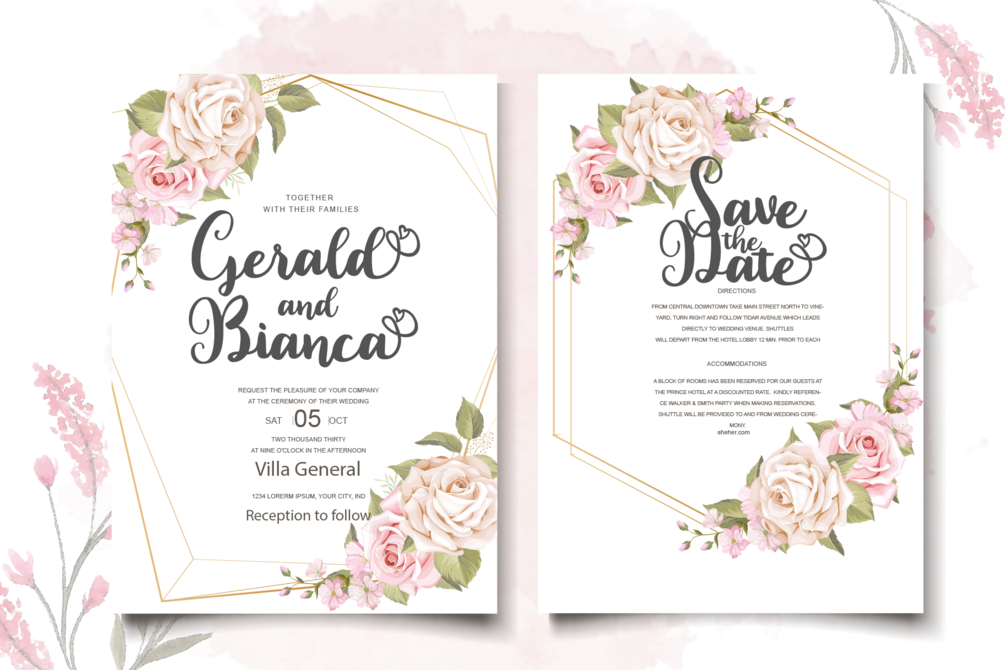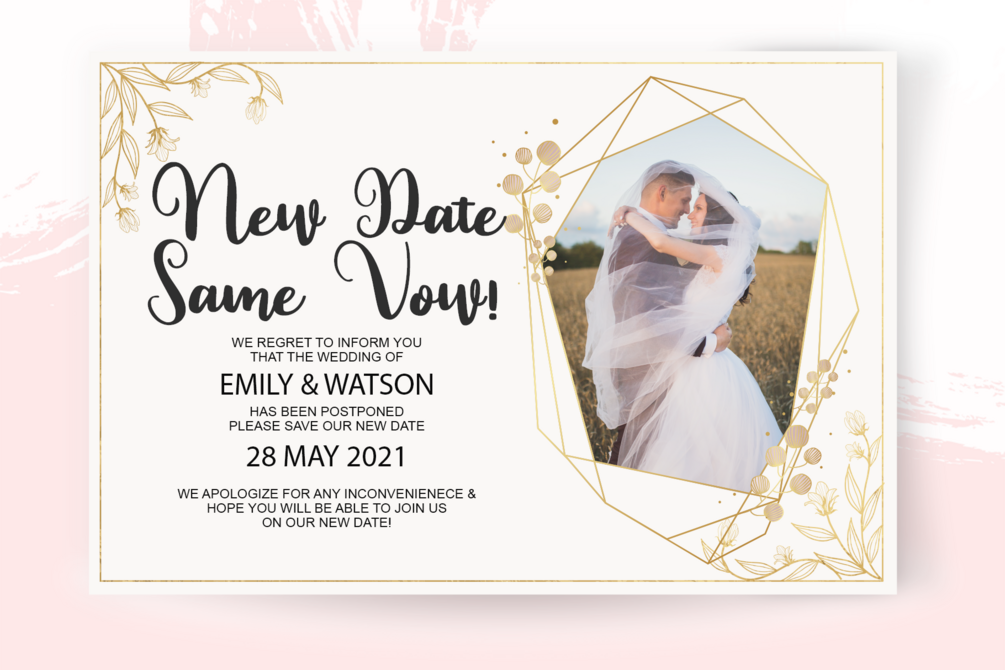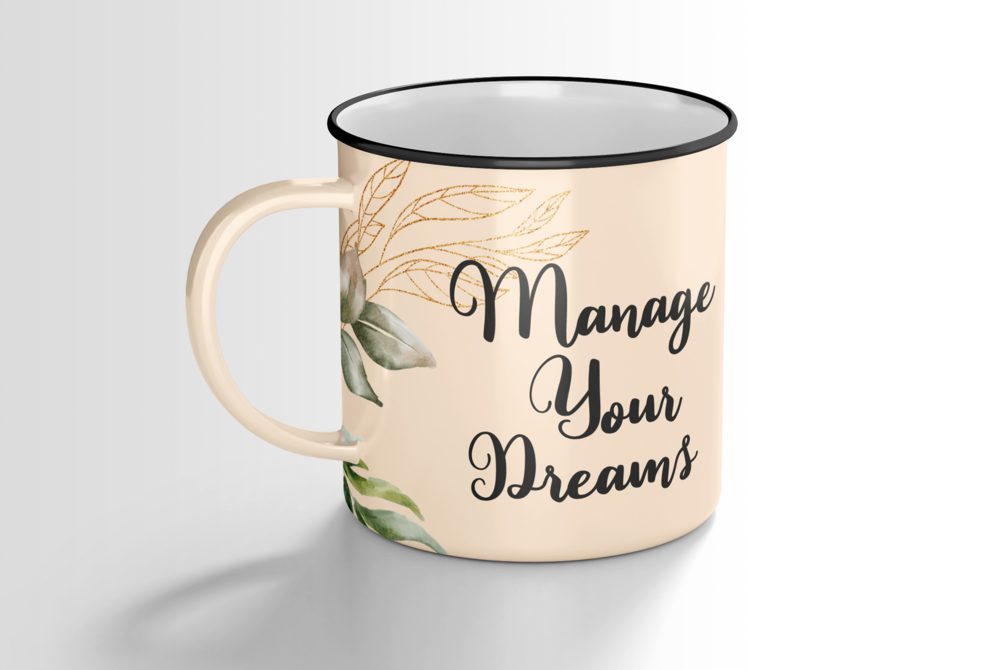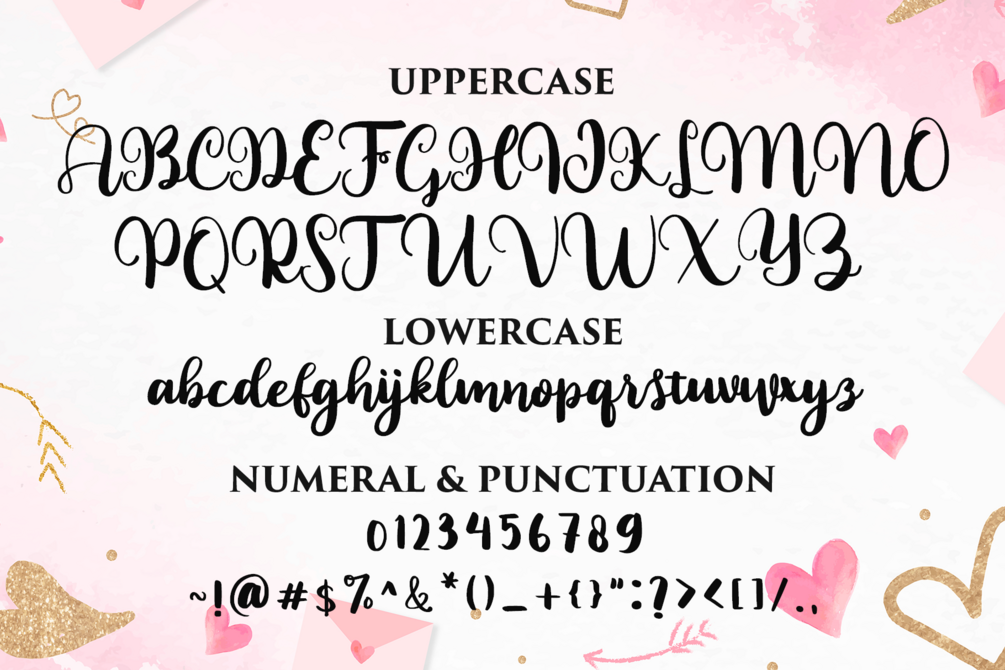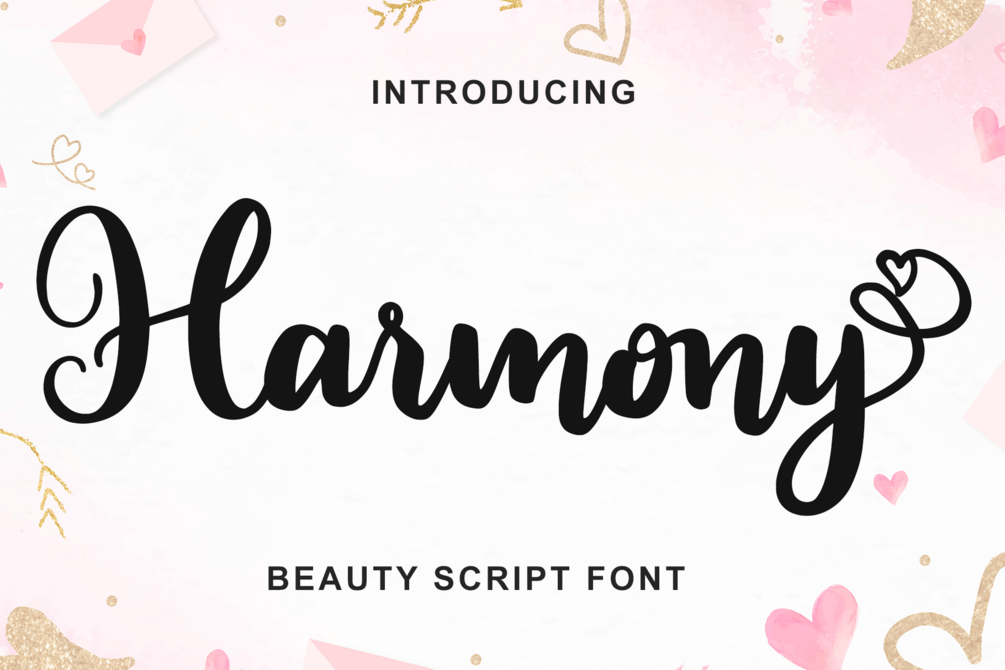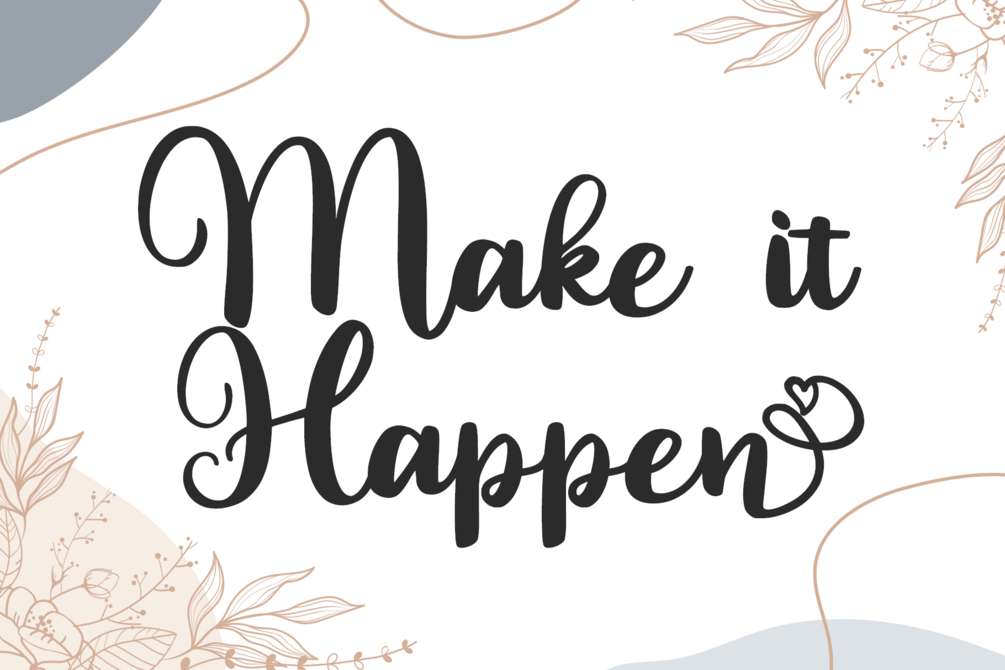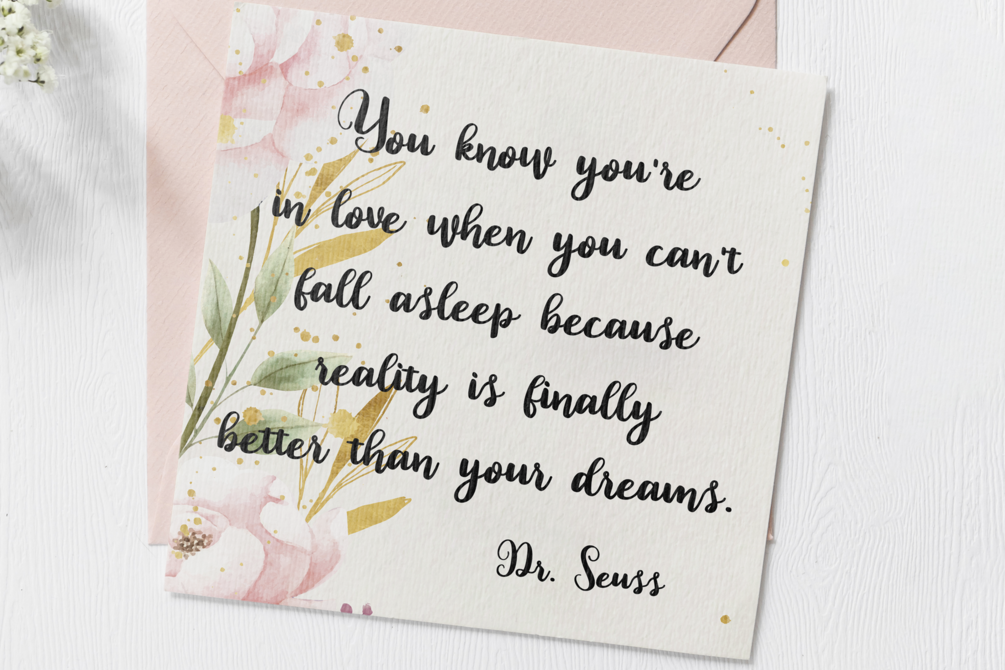
Harmony
Harmony is an amazing hand lettering script font that delivers natural flow, attractive style, and beautifully crafted details. Every letter is carefully designed to create authentic handwritten elegance with perfect balance. Featuring 233 glyphs, including 26 alternate characters and over 60 extended Latin characters for multilingual support, this font is ideal for wedding invitations, love-themed designs, custom mugs, Christmas cards, posters, branding, quotes, greeting cards, social media graphics, and Cricut projects.
• 26 Alternate Characters
• Ligatures
• Multilingual Support (60+ Latin-based languages)